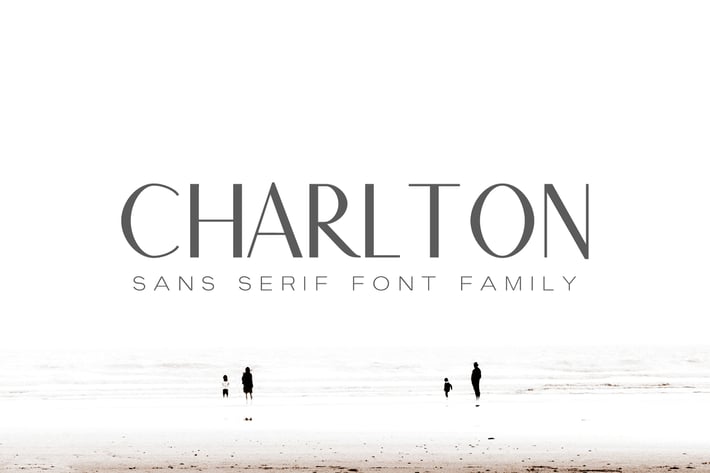
Charlton Sans Serif Font Family
Charlton Sans Serif Font Family Pack is a beautiful and simple sans serif font, which contains 9 weights and It features unique and modern sans serif look and feel. Perfect for gorgeous logos, titles, web layouts and branding. It looks gorgeous in all caps with a wide-set spacing if you want to try a classy look, or beautiful on its own in capital and lowercase letters for something completely timeless.
Font Weight: Regular, Thin, Thin-Italic, Light, Light-Italic, Medium, Medium-Italic, Bold and Bold-Italic
Charlton Font Features:
Uppercase Multilingual Letters
Lowercase Multilingual Letters
Numbers & Punctuation
Non English Characters ( Latin Supplement + Latin Extended A )